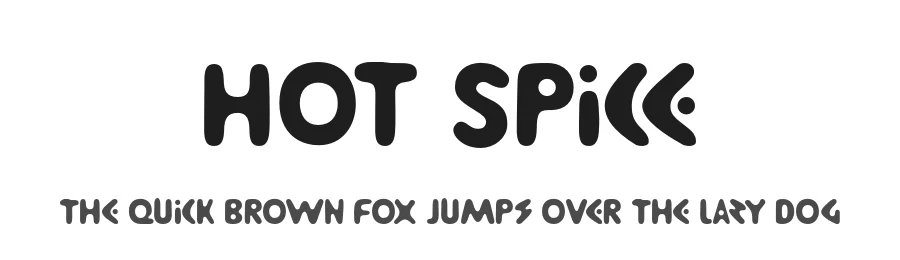
About Widound Font
Widound is an acronym from "wide" and "round", the main characteristics of this font. Mainly this font is designed for playful, cheerful, or cartoony themes and mainly for headlines.
Widound Font is a decorative font that shines as a display or heading face. Pair it with a clean sans-serif or serif font for body text β the contrast creates a clear hierarchy while the two styles stay balanced and easy to read.